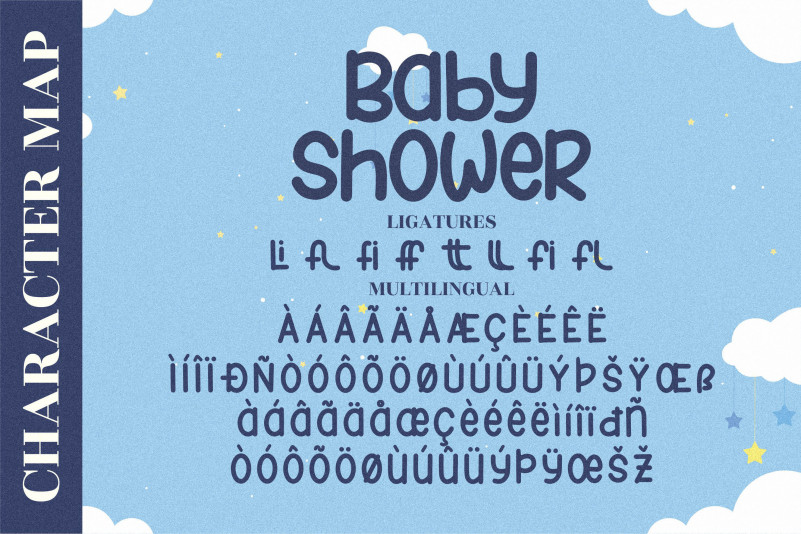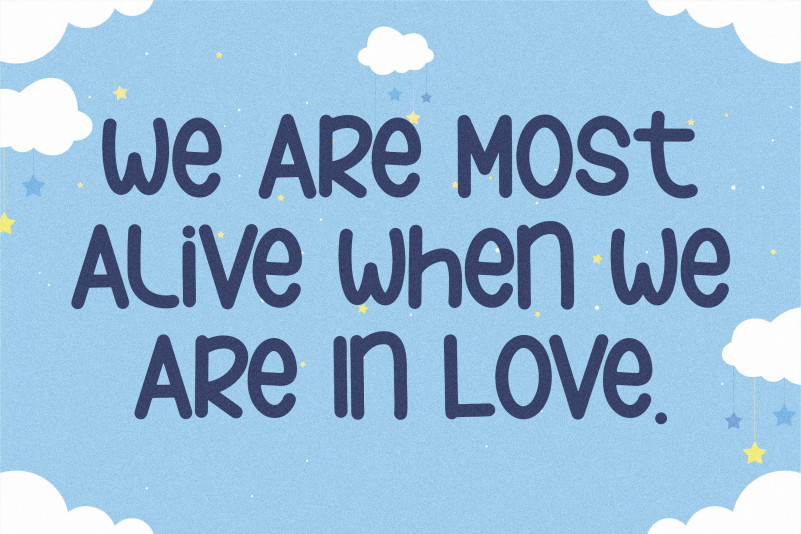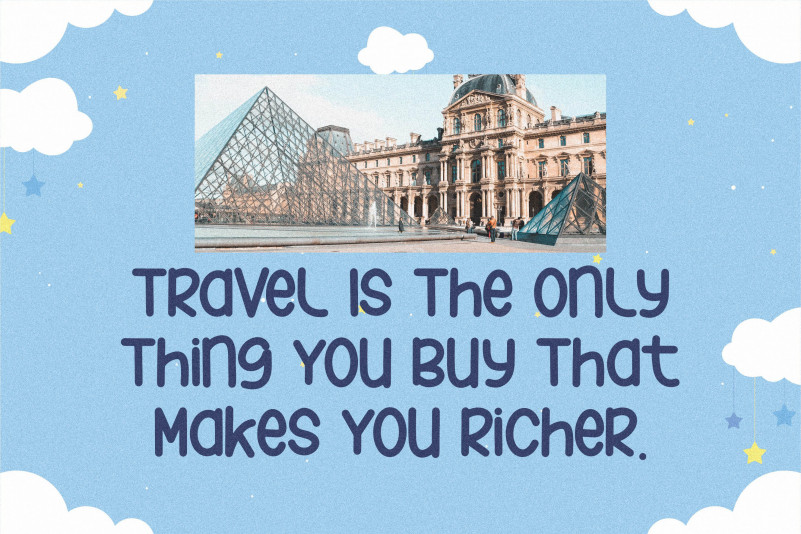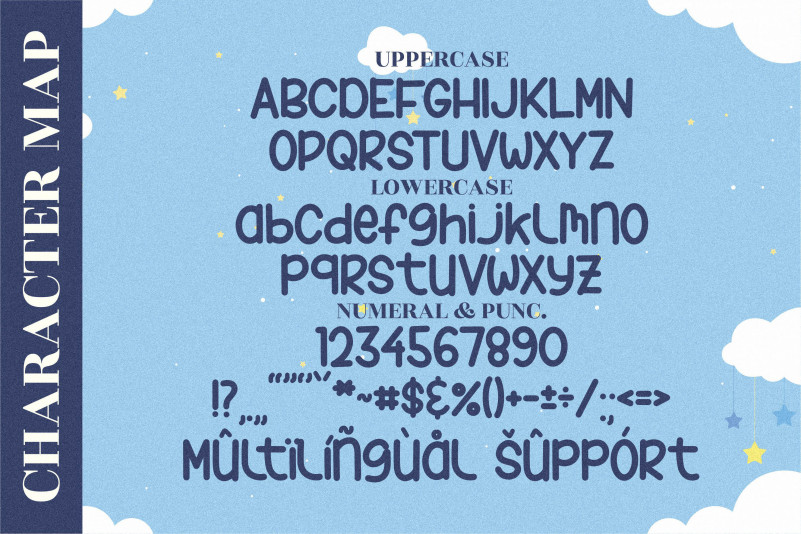
Baby Shower Font
Baby Shower Display Font
This is a quirky display font. Its well-rounded and playful characters make this font suitable for a wide pool of projects, such as logos, branding projects, homeware designs, product packaging, and all your other lovely projects that need a fun, quirky taste!